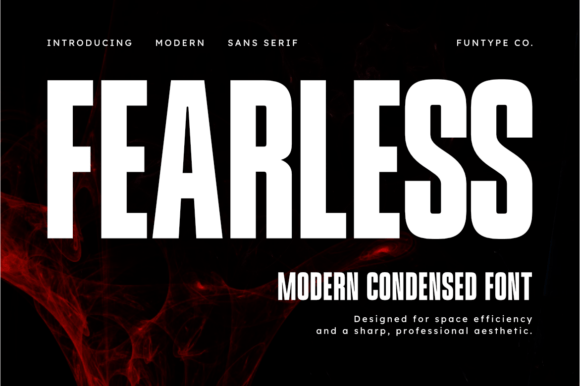
The Birth of a Bold Design Moment
Have you ever found yourself staring at a blank page, waiting for the perfect font to bring your design to life? That’s exactly what happened to me when I was working on a project for a tech startup. I needed a font that would scream innovation and confidence, something that would leave a lasting impression on the audience. And then, I discovered it – the Fearless Font.
This modern sans serif font is designed to make a statement, with its bold and condensed letterforms that pack a punch in any design. With two styles to choose from, Regular and Italic, the Fearless Font offers the flexibility designers need to create a wide range of designs, from professional branding to social media graphics.
For designers, the Fearless Font is a valuable tool that ensures your message is delivered with clarity and confidence. Its versatility and high-impact design make it an essential addition to any design arsenal, and I’m excited to share more about its features and benefits in this article.
Fearless Font Key Features
- Unique Character Set: Fearless Font features a unique character set that includes a wide range of glyphs, including Latin, Cyrillic, and Greek alphabets, as well as a variety of symbols and icons.
- High-Quality Typography: The font features high-quality typography, with carefully crafted letterforms and attention to detail, ensuring a professional and polished look in any design application.
Fearless Font Review
Overall, I was excited to dive into the Fearless Font, but my experience was a mix of highs and lows.
- ✨ Unique Character: The Fearless Font has a bold, adventurous feel to it, making it perfect for use in headings or titles where you want to grab attention.
- ⚠️ Readability at Small Sizes: While the font looks great at larger sizes, it can become difficult to read when reduced to smaller sizes, which may limit its use in body text or fine print.
While the Fearless Font has some fantastic qualities, its limitations prevent me from giving it a glowing review. However, if you’re looking for a bold, attention-grabbing font for headings or titles, it’s definitely worth considering.
- Use Fearless Font for headings and titles to add a touch of sophistication.
Alternatives to Fearless Font
Montserrat is a sans-serif font that is perfect for creating a modern and minimalist design. It is highly legible and works well for both body text and headings. Montserrat is a great alternative to Fearless Font when you need a clean and sophisticated look. Compared to Fearless Font, Montserrat has a more geometric and modern feel, making it ideal for digital design and urban environments.